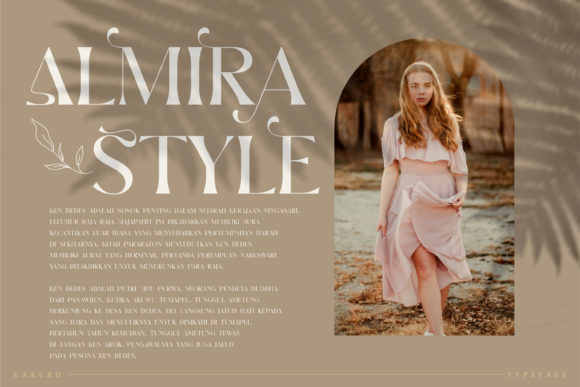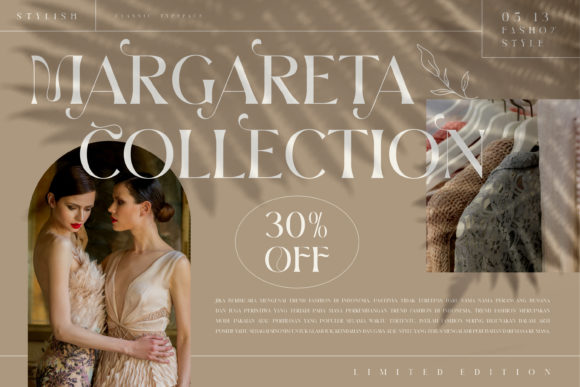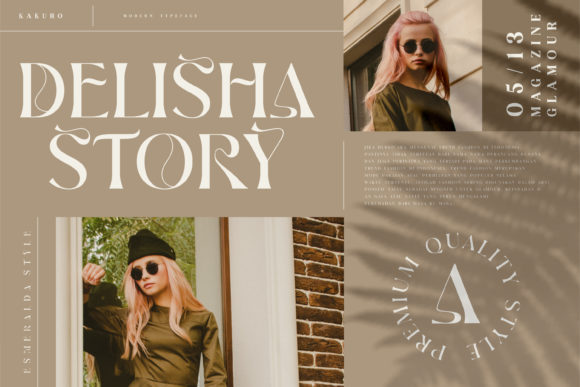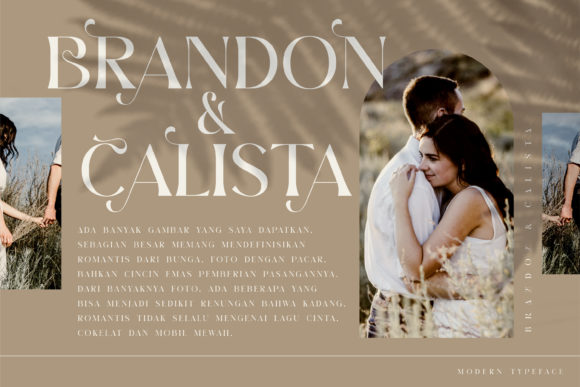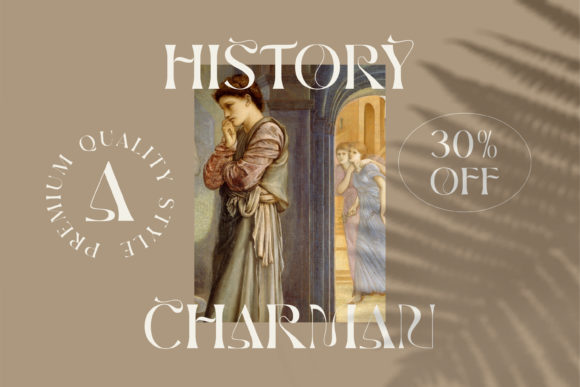
Unleash Your Creativity with the Brow Volky Font
Have you ever stared at a blank page, searching for the perfect font to bring your vision to life? We’ve all been there. It’s that moment when everything feels stagnant, and the words just won’t flow. But what if we told you that there’s a font that can break through that creative block and elevate your designs to new heights?
Meet the Brow Volky Font, a stunning serif font that exudes elegance and sophistication. With its intricate details and stylish flair, this font is the perfect addition to any designer’s library. Whether you’re working on a magazine cover, a wedding invitation, or a corporate brochure, the Brow Volky Font has the potential to take your creations to the next level.
Brow Volky Font Key Features
- Unique Characteristics: Brow Volky Font features a distinctive, bold, and playful style with intricate details and ornate flourishes, making it ideal for use in creative and artistic applications.
- Font Weight and Style: Brow Volky Font is available in multiple weights, including light, regular, medium, bold, and extra bold, as well as various styles, such as italic and oblique, to suit different design needs.
Brow Volky Font Review
Overall, I was quite excited to try out the Brow Volky Font. As a designer, I’m always on the lookout for unique and creative fonts that can elevate my designs.
- Unique aesthetic: The Brow Volky Font has a distinctive, quirky look that’s perfect for adding a touch of personality to your designs.
- Customizability: The font offers a range of customization options, including size, color, and spacing, which makes it easy to tailor to your specific needs.
- Legibility: Despite its unusual design, the font is surprisingly legible, making it suitable for a wide range of applications.
- Compatibility issues: I encountered some compatibility problems when using the font in certain software and operating systems.
- Lack of bold and italic options: While the font offers a range of customization options, it’s lacking in bold and italic styles, which can be a limitation for certain designs.
While the Brow Volky Font has its limitations, I think it’s a great addition to any designer’s toolkit. With its unique aesthetic and customizability, it’s perfect for adding a touch of creativity to your designs. However, be aware of the potential compatibility issues and lack of bold and italic options before using it in your projects.
The Brow Volky Font is ideal for:
- Creating eye-catching headlines and titles.
- Designing logos and branding materials.
- Adding a touch of sophistication to text-based designs.